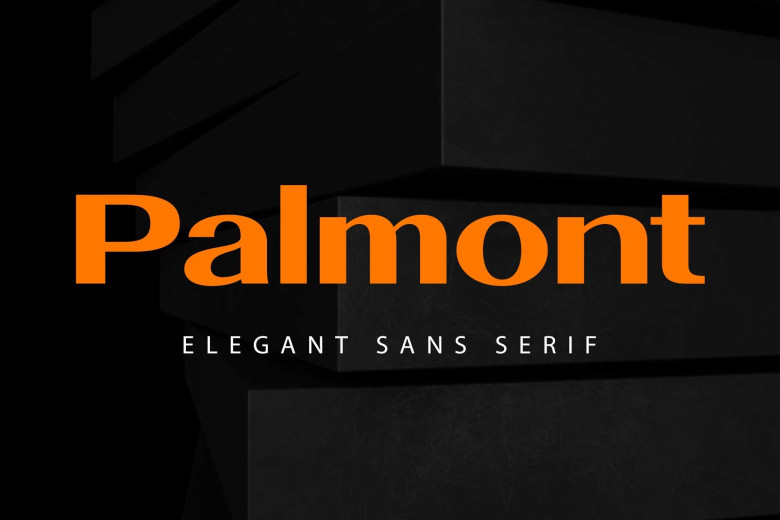
Palmont Font
Palmont is a modern vintage font with the characteristics of sans serif; wide width, geometric shapes, futuristic look that can be used in any project. It has a large x-height, and its contrast is small, which gives it mighty and refined look, good, for instance, for titling in big sizes. This font can be used with other typeface to come with a playful font specially in the typographic one. Palmont work best for branding, logos and logotypes, editorials and magazines, posters and fashion.
Palmont Sans Serif Font